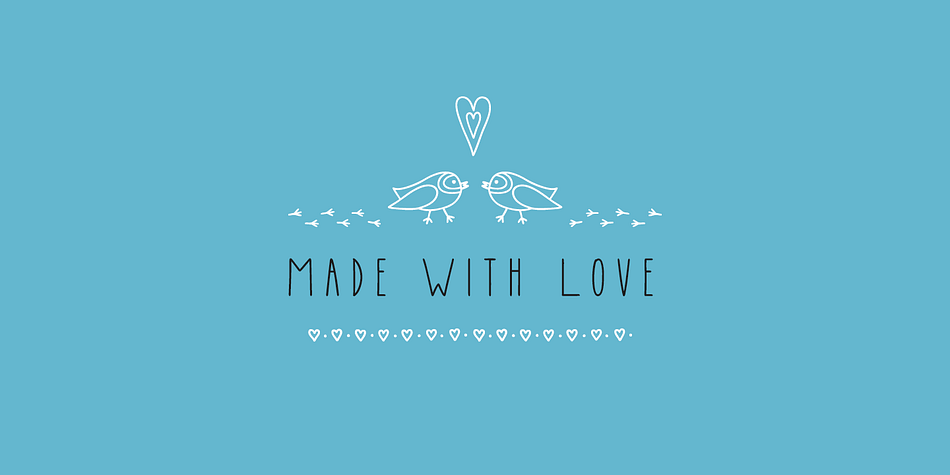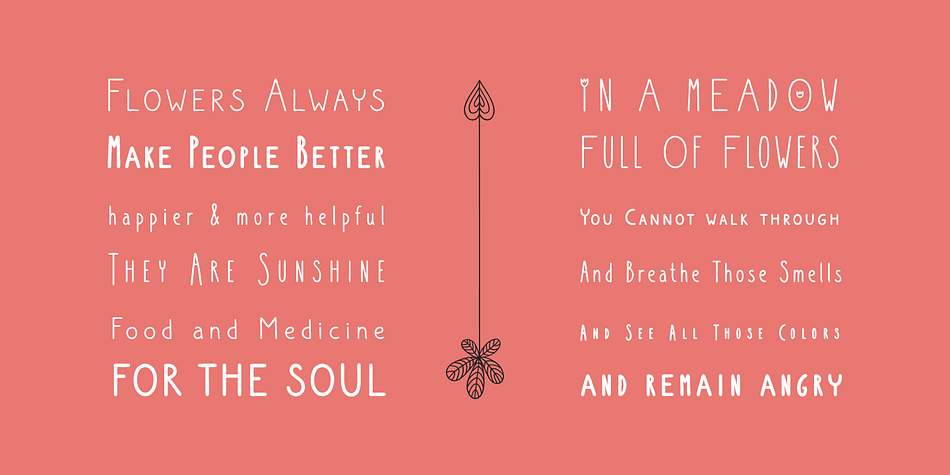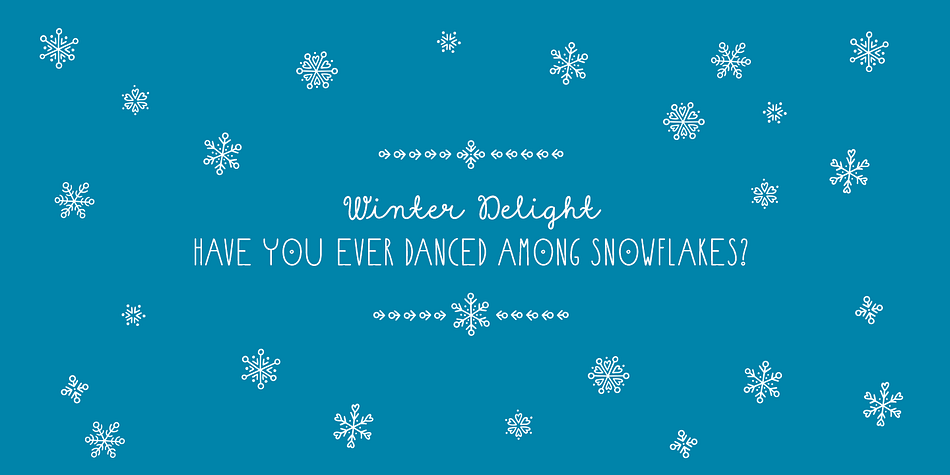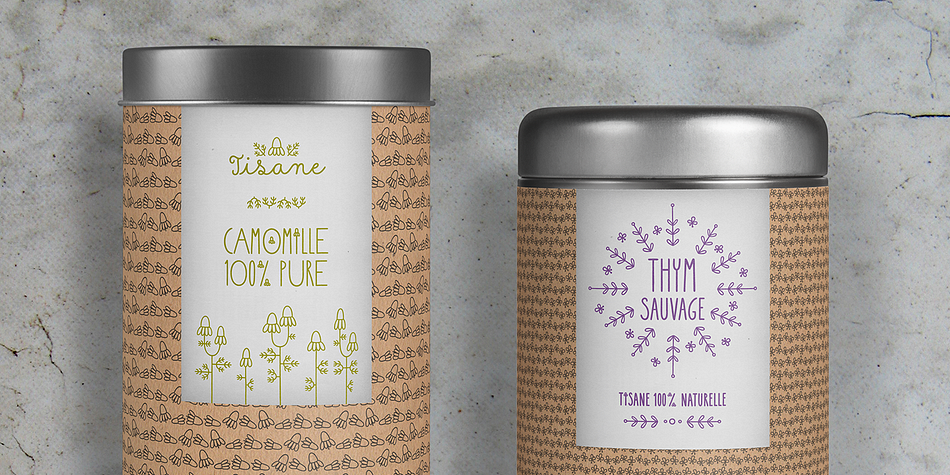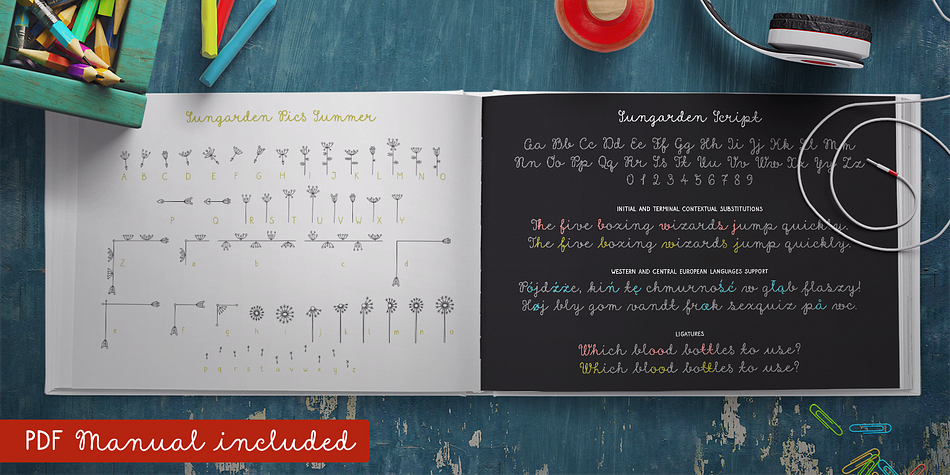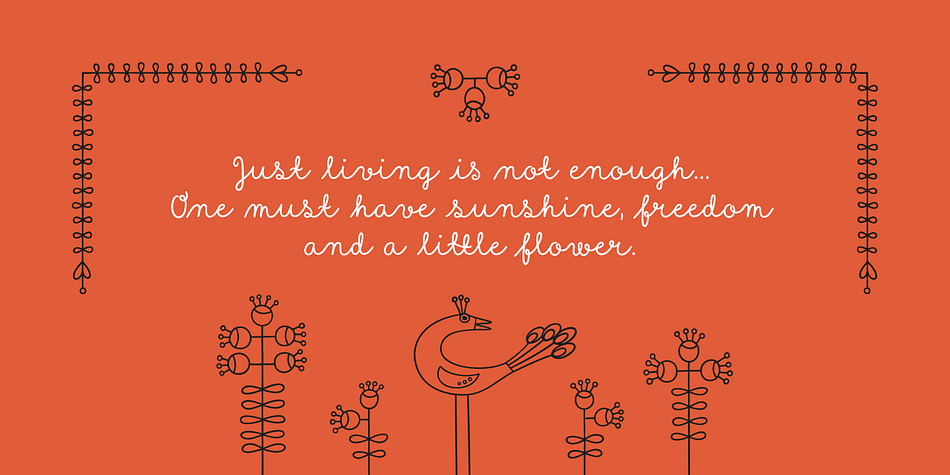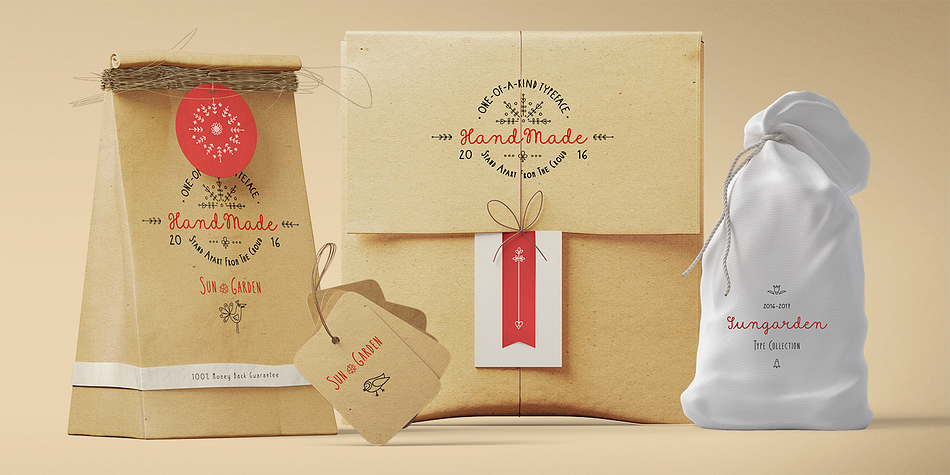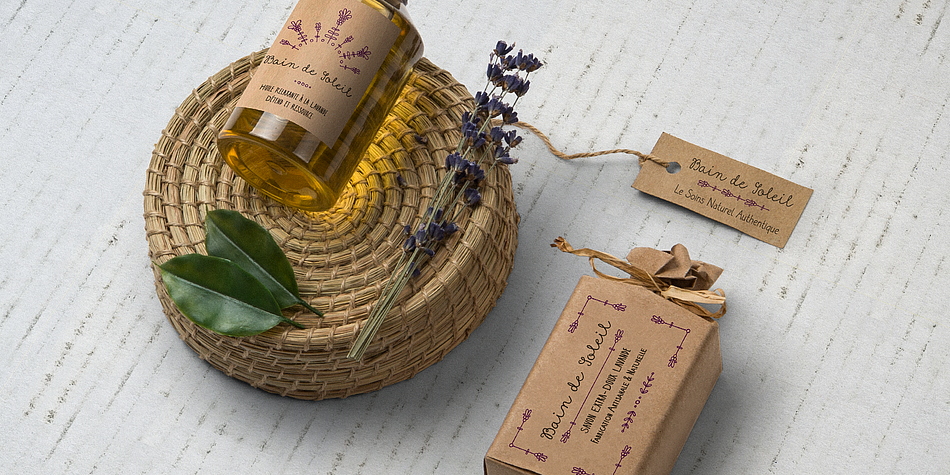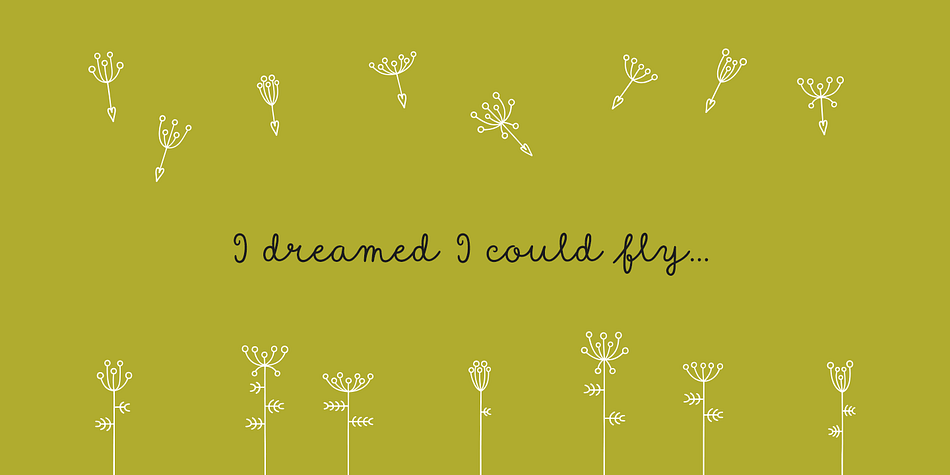
Designed by Mirka Chrastinová, Sungarden is a dingbat font family. This typeface has twenty-one styles and was published by Juraj Chrastina.
Welcome to my hand-drawn garden! Enjoy the sunshine, surrounded by my line illustrations of flowers, leaves, birds, hearts, arrows, snowflakes and various ornaments.
Sungarden is a bouquet of about 400 handmade pics and floral ornaments, created to get along well with my collection of 12 playful sans serifs and a cute script. Sungarden Script is packed with ligatures and automatic initial and terminal forms accessed through contextual alternates. All the fonts have an extended character set to support Western and Central European languages.
The Sungarden family is well-suited for nature cosmetics, organic food, handmade-style products, wedding and greeting cards, invitations, labels, packaging, menus, books or apparel.